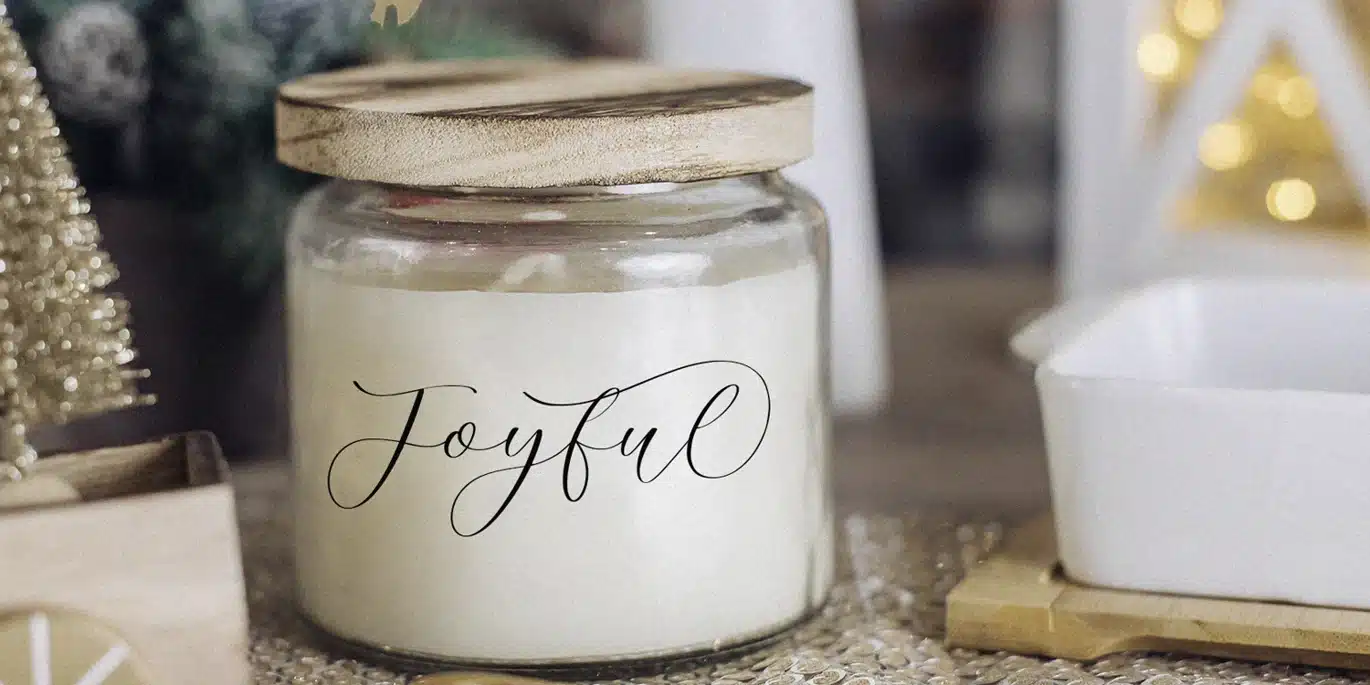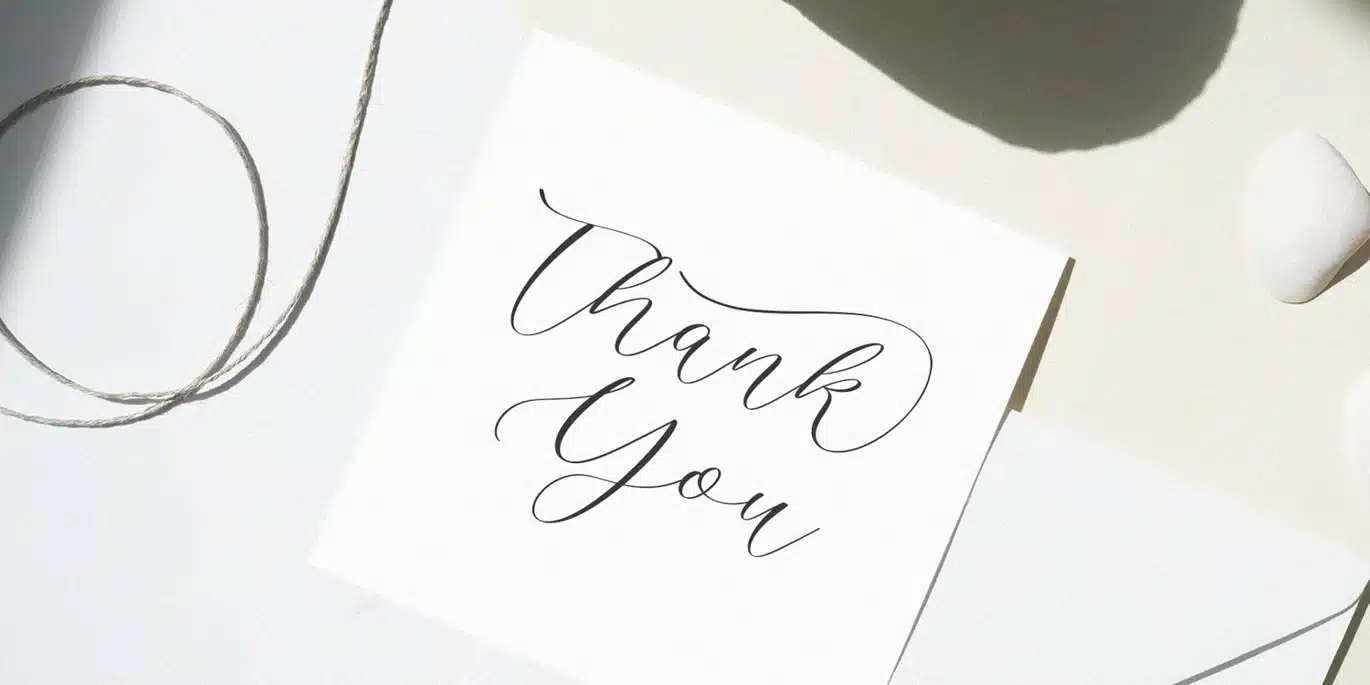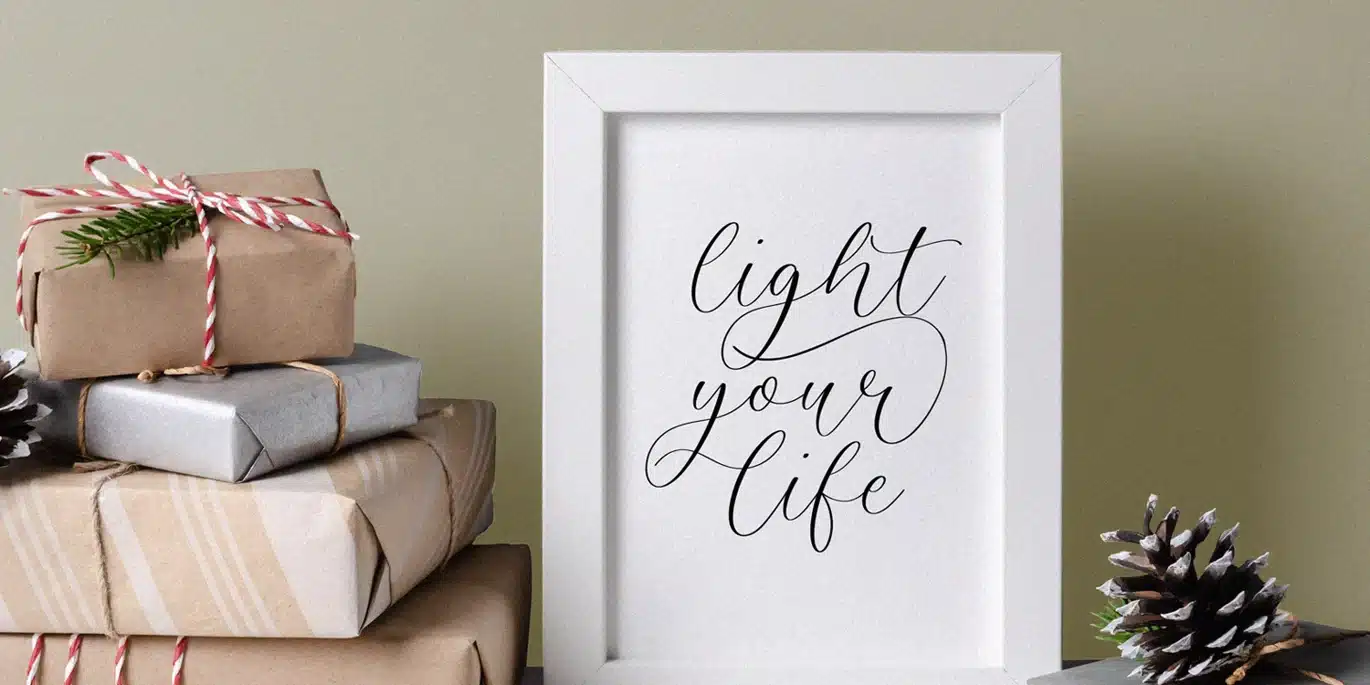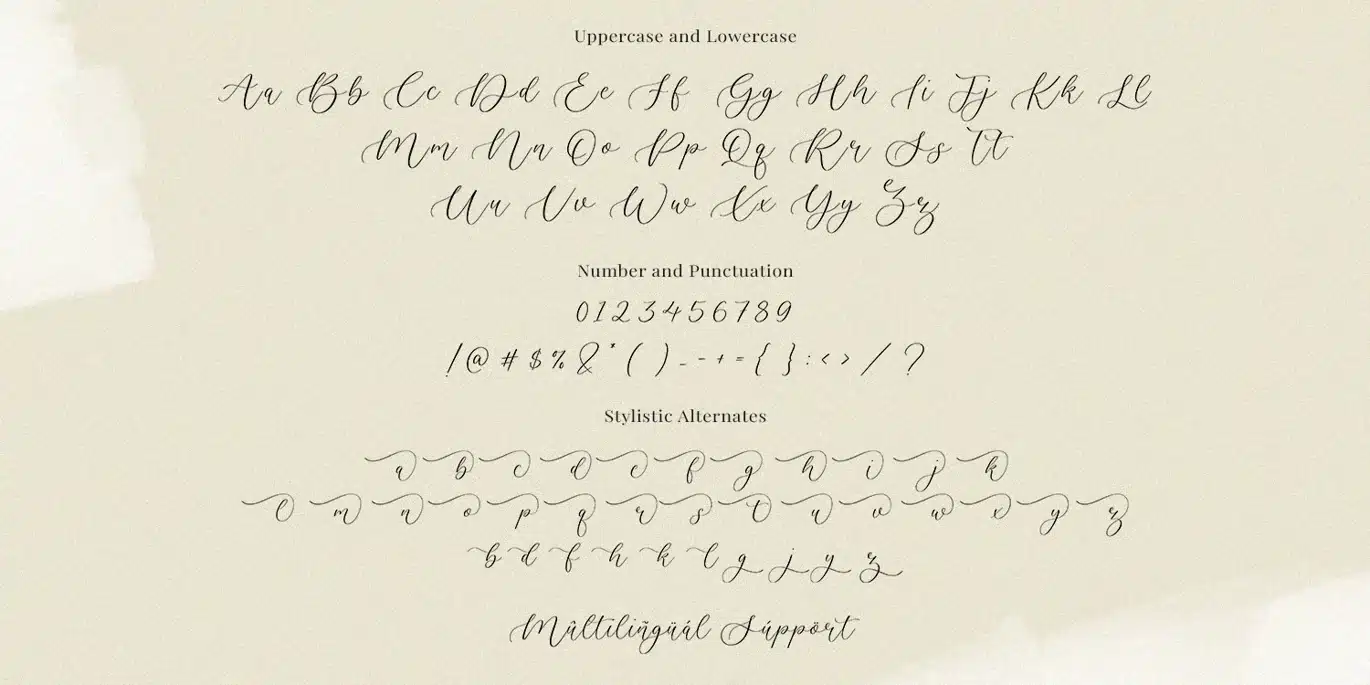
Baileyone Font
Baileyone A Stylish Script Font , which was created with great care and specially created for you.
Baileyone is perfect for product packaging, branding project, megazine, social media, wedding, or just used to express words above the background.